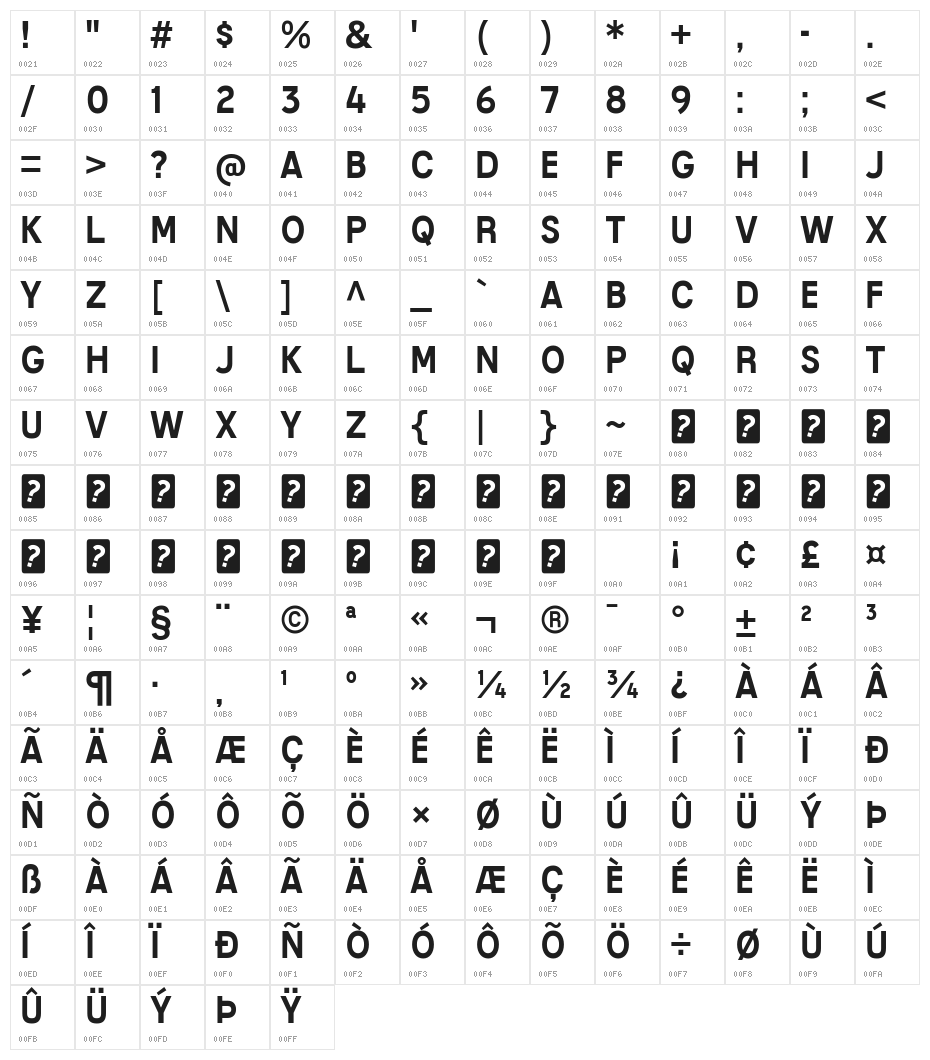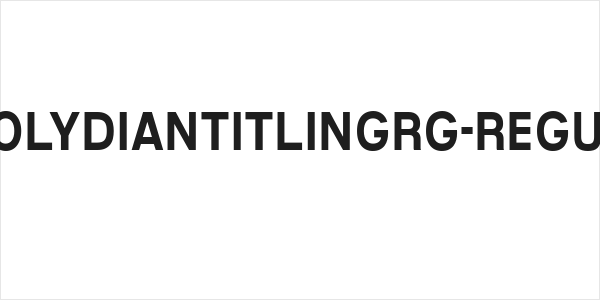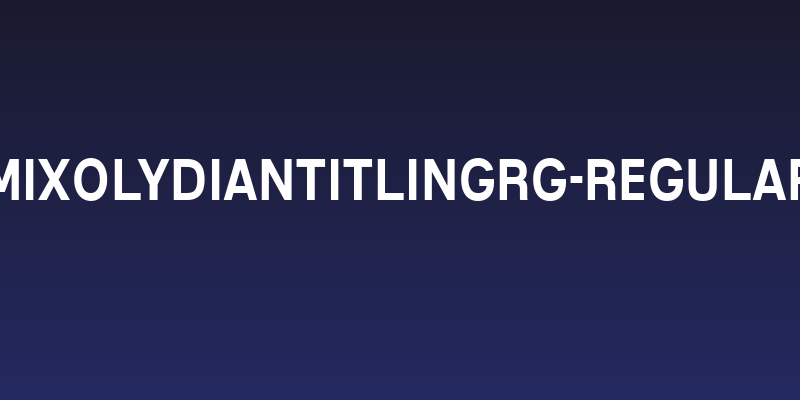
MixolydianTitlingRg-Regular Font
MixolydianTitlingRg-Regular Description
This font features a bold and modern sans-serif style, characterized by clean lines and a strong presence. The uppercase letters are uniform in height, providing a sense of stability and balance. The numerals are equally bold, ensuring readability and impact. Special characters are designed to match the overall aesthetic, maintaining consistency across all glyphs. The font's simplicity and clarity make it versatile for various design applications.
| Use Case | Headlines, Logos, Advertising |
| Proposed Projects | Ideal for branding, advertising, headlines, and digital media where a strong, modern look is desired. |